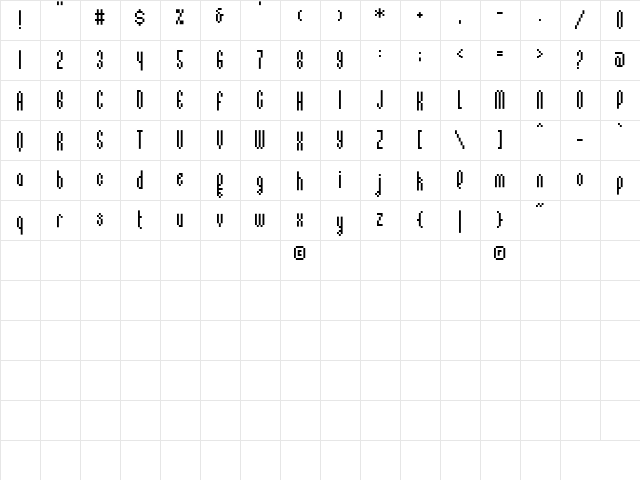
VIET MAP LOVE Regular
Design Context for VIET MAP LOVE Typeface
VIET MAP LOVE is a composed and adaptable typeface that performs quietly and consistently across a wide range of design contexts.